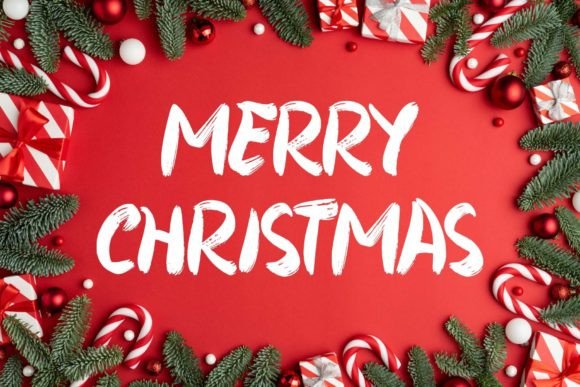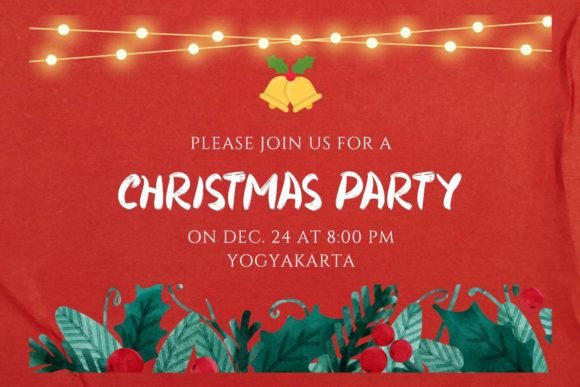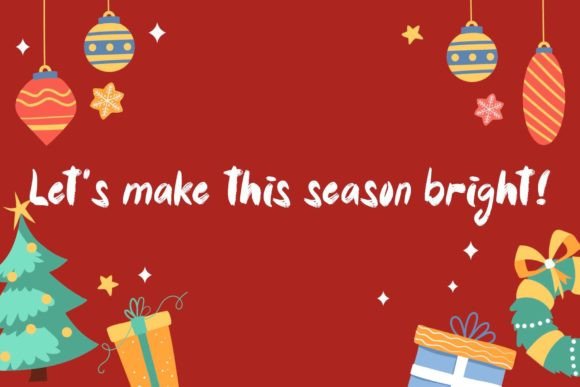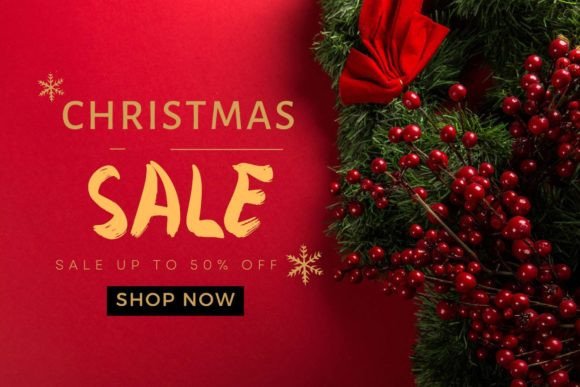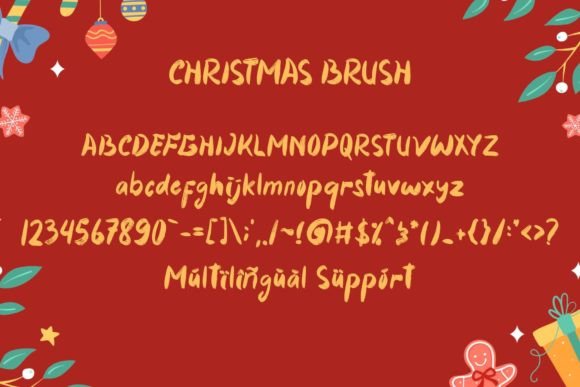
Introducing Christmas Brush Font: The Perfect Holiday Companion
Are you a designer or crafter looking for a unique and festive font to add some holiday cheer to your projects? Look no further than Christmas Brush Font! This versatile brush font is perfect for creating stunning Christmas-themed designs, but its uses don’t stop there. In this article, we’ll explore the features and benefits of Christmas Brush Font, and show you how it can elevate your designs for various occasions.
What is Christmas Brush Font?
Christmas Brush Font is a beautifully crafted brush font that captures the spirit of the holiday season. With its unique brush strokes and festive feel, it’s the perfect addition to any Christmas-themed design project. But what sets it apart is its versatility – this font can be used for a wide range of occasions beyond Christmas, including summer, graduation, 4th of July, and more.
Key Features of Christmas Brush Font
- Uppercase and Lowercase Letters: Christmas Brush Font includes both uppercase and lowercase letters, giving you the flexibility to create a wide range of designs.
- Numerals and Punctuation: The font also includes numerals and punctuation marks, making it easy to create complete and cohesive designs.
- Multilingual Support: With multilingual support, you can use Christmas Brush Font to create designs for a global audience.
Uses for Christmas Brush Font
So, how can you use Christmas Brush Font in your designs? The possibilities are endless! Here are a few ideas to get you started:
- Christmas Designs: Create stunning Christmas cards, posters, and social media graphics with a personal touch.
- Summer Vibes: Use Christmas Brush Font to add a playful touch to your summer-themed designs, such as beach posters or summer sale banners.
- Graduation: Add a celebratory feel to your graduation designs, such as diplomas or graduation party invitations.
- 4th of July: Create patriotic designs, such as Independence Day posters or social media graphics, with a festive touch.
- Banners and Posters: Use Christmas Brush Font to create eye-catching banners and posters for any occasion.
- Branding: Add a personal touch to your brand’s designs, such as logos or packaging, with Christmas Brush Font.
- Stickers: Create fun and festive stickers for parties, gifts, or decorations.
Why Choose Christmas Brush Font?
With so many fonts available, why choose Christmas Brush Font? Here are just a few reasons:
- Unique and Festive: Christmas Brush Font adds a unique and festive touch to any design, making it perfect for holiday-themed projects.
- Versatile: With its wide range of uses, Christmas Brush Font is a great addition to any designer’s toolkit.
Christmas Brush Font is a versatile and festive brush font that’s perfect for designers and crafters looking to add some holiday cheer to their projects. With its unique brush strokes, multilingual support, and wide range of uses, it’s a great addition to any designer’s toolkit. Whether you’re creating Christmas designs or looking for a font to use for other special occasions, Christmas Brush Font is a great choice. So why wait? Download Christmas Brush Font today and start creating stunning designs that will leave a lasting impression!